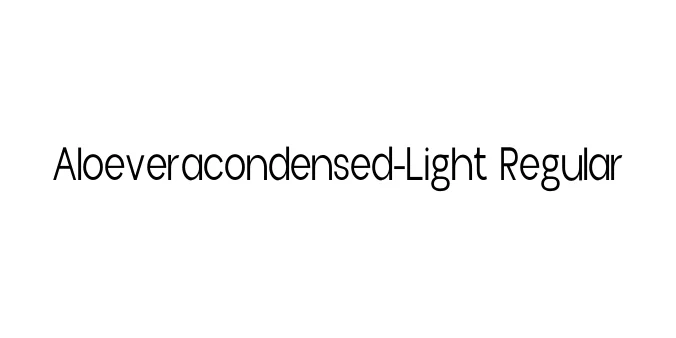
Aloeveracondensed-Light Regular
Designed by Arterritory
Aloeveracondensed-Light Regular is a sophisticated and modern sans-serif typeface characterized by its narrow proportions and clean, minimalist aesthetic. It was developed to provide designers with a sleek, space-saving solution that does not sacrifice legibility or style. The light weight of this condensed variant offers a delicate and airy feel, making it particularly effective for high-end fashion branding, architectural layouts, and contemporary editorial designs where a touch of elegance is required.
The font family has gained popularity for its versatile application across both digital and print media. Its vertical emphasis and sharp terminals allow it to stand out in crowded compositions, while its balanced kerning ensures a smooth reading experience. Whether utilized for striking website headers or refined print advertisements, Aloeveracondensed-Light Regular serves as a premium choice for creators looking to project a professional and avant-garde image.
Aloeveracondensed-Light Regular Best Uses
Excellent for luxury logos and sophisticated corporate identities.
Perfect for magazine headlines and high-impact title sequences.
Ideal for sleek navigation menus and modern hero sections.
Highly effective for vertical layouts and architectural event announcements.